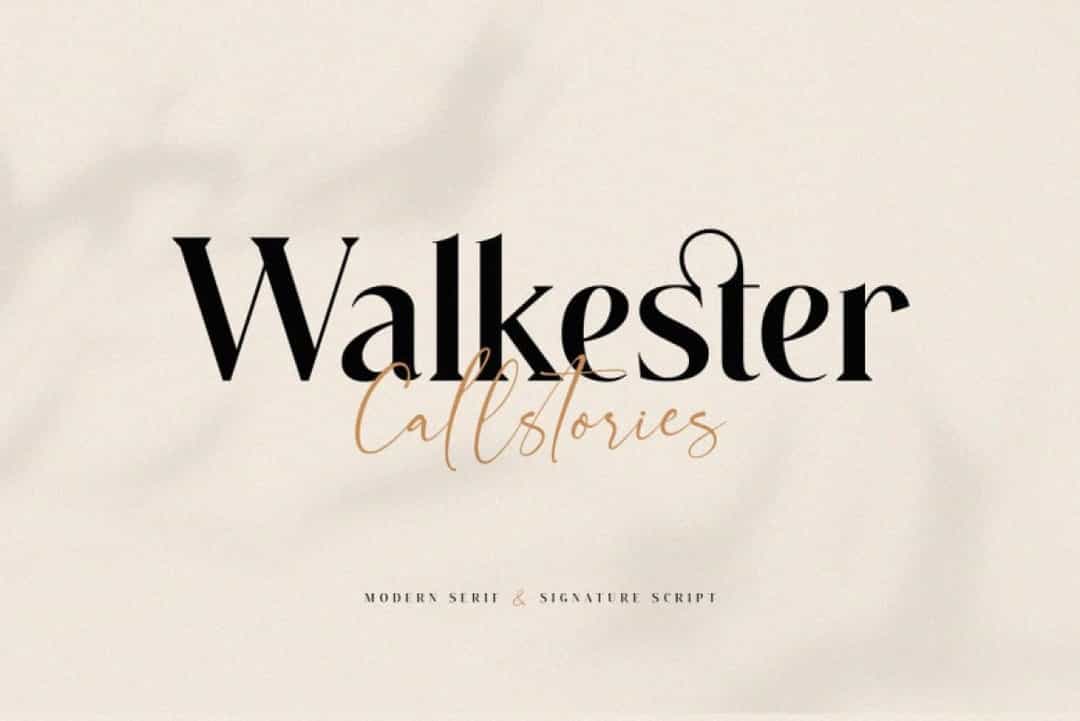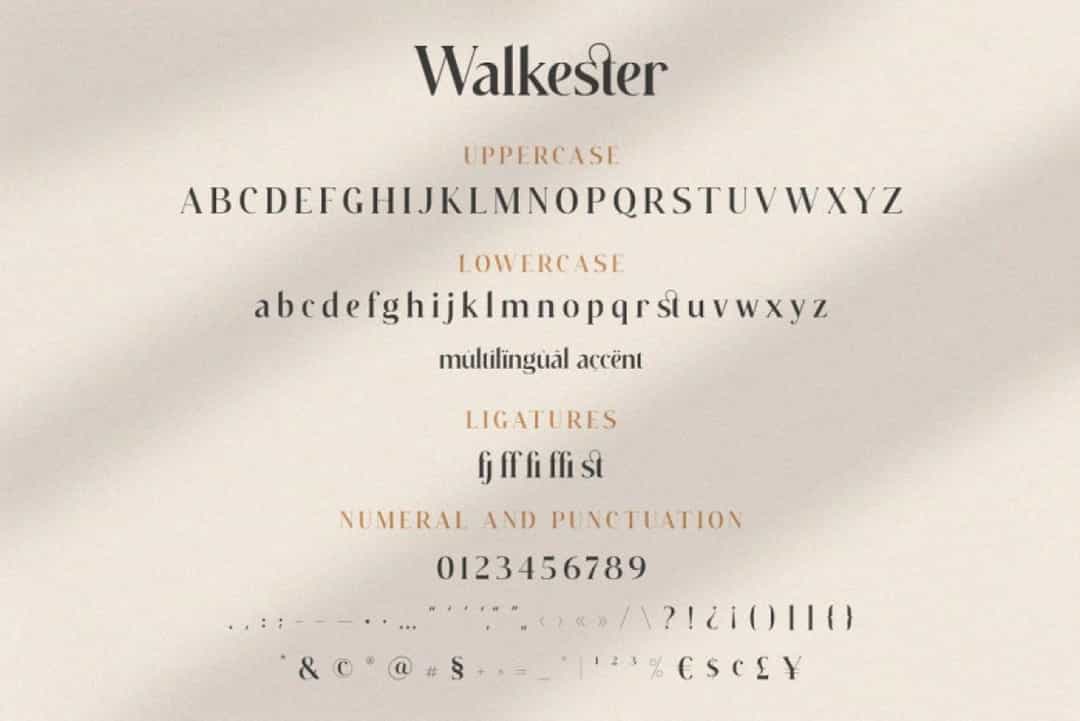
Welcome the brand all-new Walkester Font Duo!!! Walkester is an exquisite font duo featuring modern serifs and signature script. Both pieces come pre-matched and ready to add sophistication, elegance, chic modernity and class to your designs! This font was specially crafted to meet these criteria.